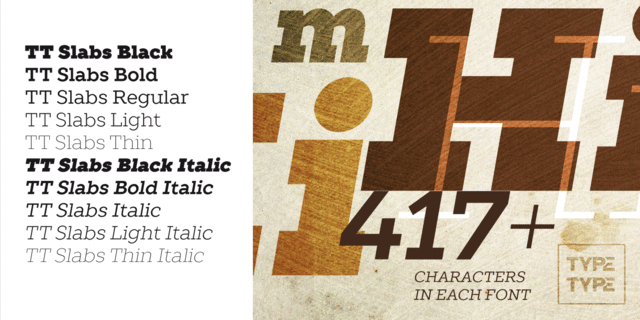
TT Slabs (10 fonts)
About TT SlabsWorld needs a beautiful, simple and high-quality fonts. We need simple and geometric
fonts. Slab is a form of serifs, which gave its name to the fontfamily. If you are looking
for a versatile font with wide proportions for your projects — Slabs will suit you perfectly.
Scope: food packaging, packaging of household appliances, newspapers, magazines, headers,
signs, theatrical scenery, logos, interior design, decoration of shops, fruit and vegetable
labels, homemade design, price tags, engraving. Optimized for the websites, mobile applications, and printing materials. Typeface designed by Ivan Gladkikh in 2014.
accurate, easy, cold, fashionable, business, stable, static, flat, cutting, sharp, crisp, wire, thin, solid, serious, schematic, engineering, convincing, simple, rectangular, iron, steel, reliable, self-assured, industrial, technogenic, urban, urbanistic, strong, responsible, motivating, severe, loud, tough, ambitious, sexy, sportive, workman, notable, bright, active, splashy, authoritative, formidable, powerful, heavy, military, army
architecture, constructor, design, clock, equipment, device, science, technology, scheme, engineer, city, office, accountant, industry, machine tool, tool, mathematics, chemistry, urban studies, finance, medicine, policy, power station, energy industry, factory, fitness equipment, repairs, blockbuster, thriller, action, police, protection, security, steel-maker, motor, engine, construction, building, building materials, football, sport, workman, oil, selfie, pharmacy, power, mechanical engineering, army, airsoft, footwear, brick, truck, trucker Typeface associated with age: